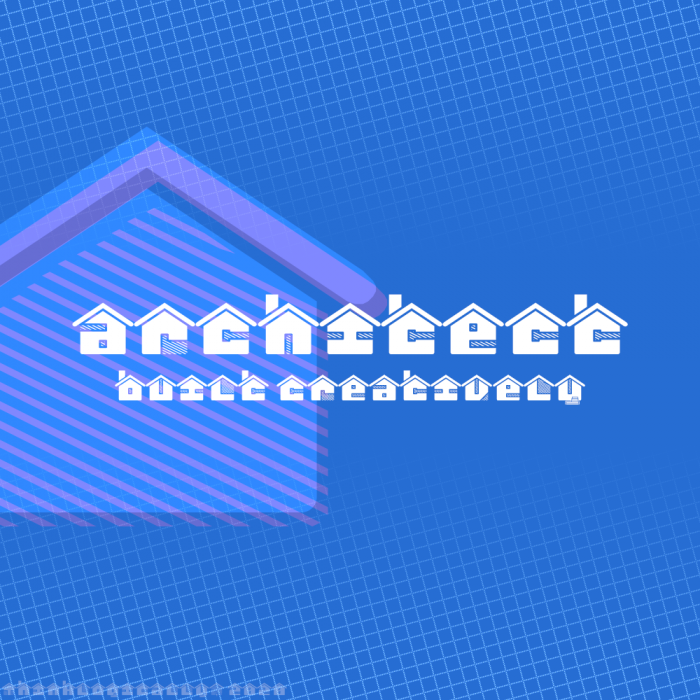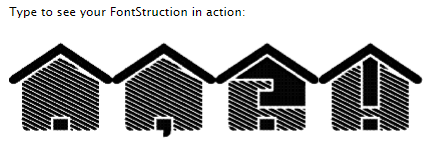
fs architect
by ThinkLogically
architect - @ for full house, _ for empty house.
A frontly funny font!
Very cool. Nice hatching.
Nice!
This is a great idea. I love what you’ve done with the acenders and descenders.
Very creative, I love the implementation of chimneys and stairs. The lowercase t kinda reads like a c – I would remove the downward notch at top right. The punctuation also looks too thin compared to the letters... Actually, maybe the period and comma could be like small doghouses? Just some ideas.
Thanks @V. Sarela (Yautja). I was hoping for feedback regarding punctuation characters. For the period and the comma, I think I can consider that idea, but I am pretty happy about it so far. I have been stuck for some time in the question mark and excalamation mark - I might need some ideas about it.
Can you do ? from Z and ! from T. The idea with the doghouses is very cool. And your font is cool too, of course!
Thank you @Dmitriy Sychiov (Sychoff). Maybe these will do?
Yes, cool, why not? But period and comma still look a bit strange like full-glass house.
clever design, the way the letters, numbers and symbols blend with the shape of the house is unique and eye-catching
Punctuation characters now look good, hope you like them!
I just found - crossbar of your t not horizontally straight, and confused with С. S could also have curves like С (closed aperture).
Lowercase t is now fixed.
This font is creatiVe